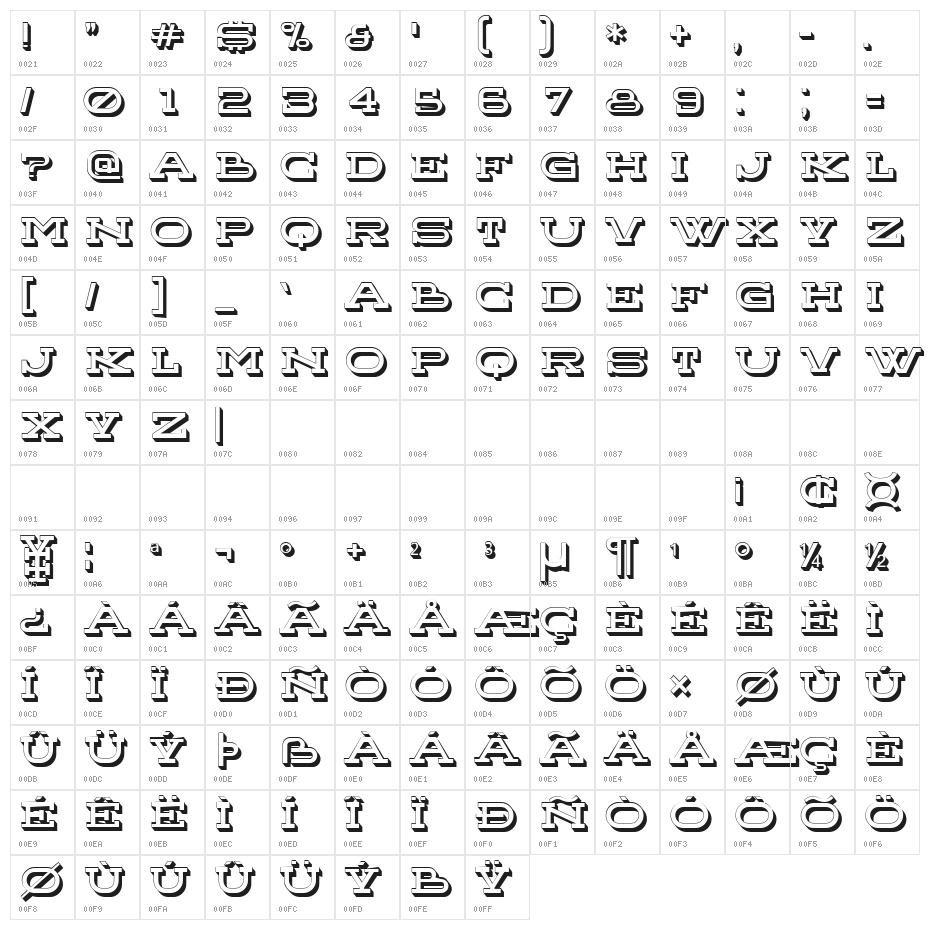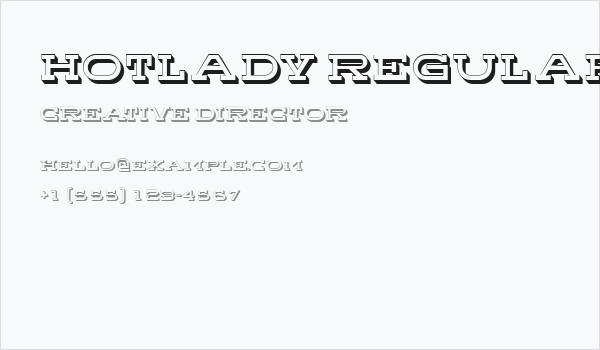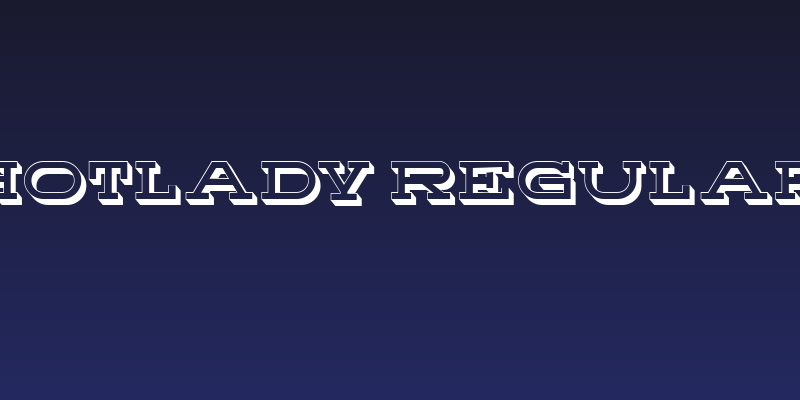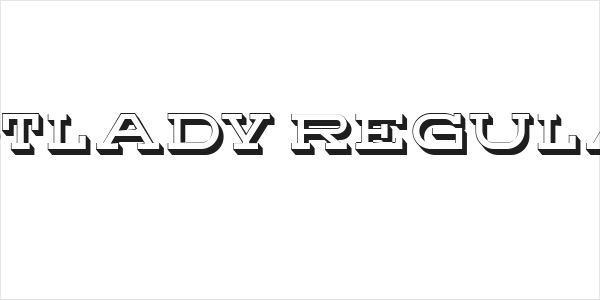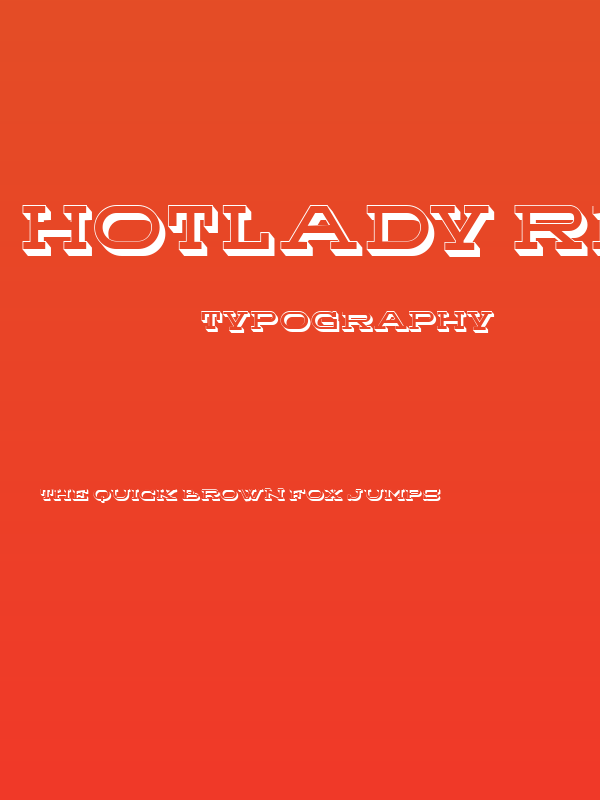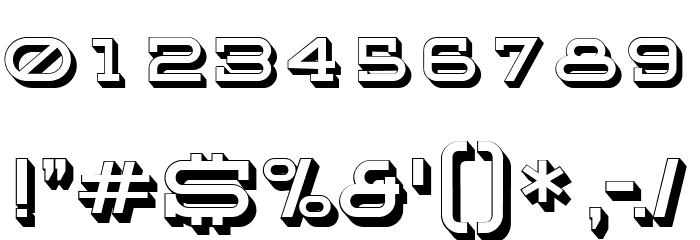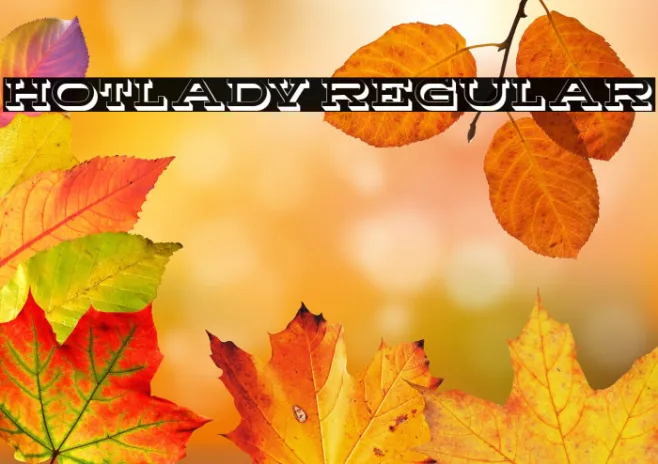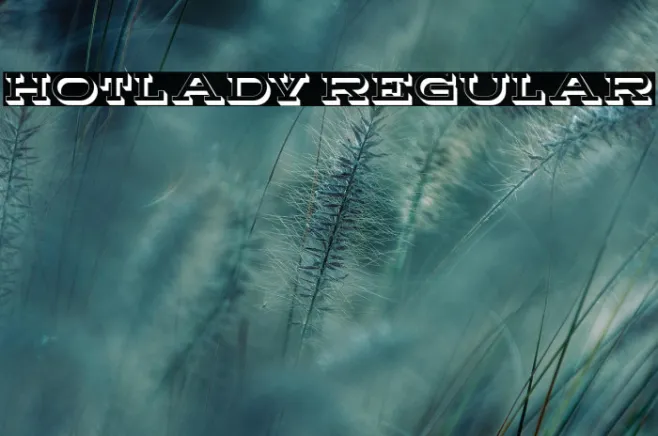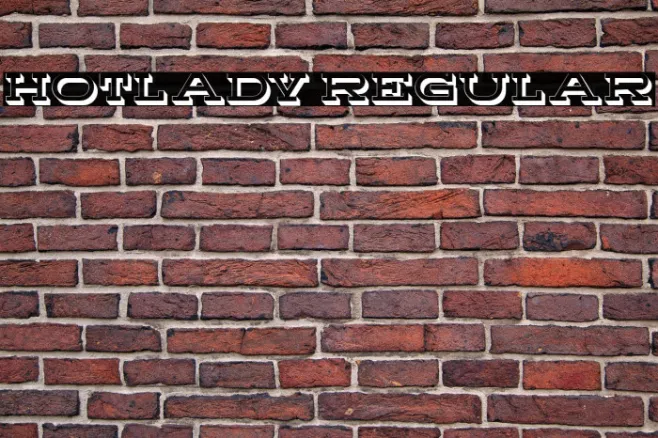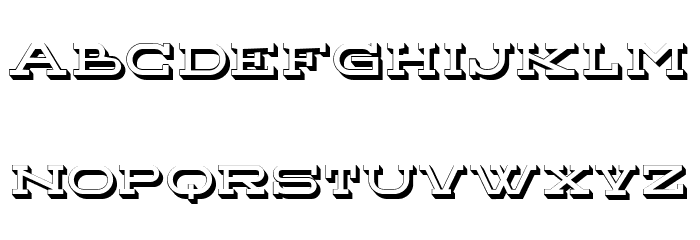
Hotlady Regular Font
Hotlady Regular Description
This font features a bold and striking design with a three-dimensional effect that gives it a unique and eye-catching appearance. The characters have a strong geometric structure with sharp edges and a shadow effect that adds depth. The uppercase and lowercase letters maintain a consistent style, while the numerals and special characters complement the overall aesthetic. This font is ideal for projects that require a bold statement and a modern touch.
| Proposed Projects | Ideal for headlines, posters, logos, and branding materials that need a bold and modern look. |